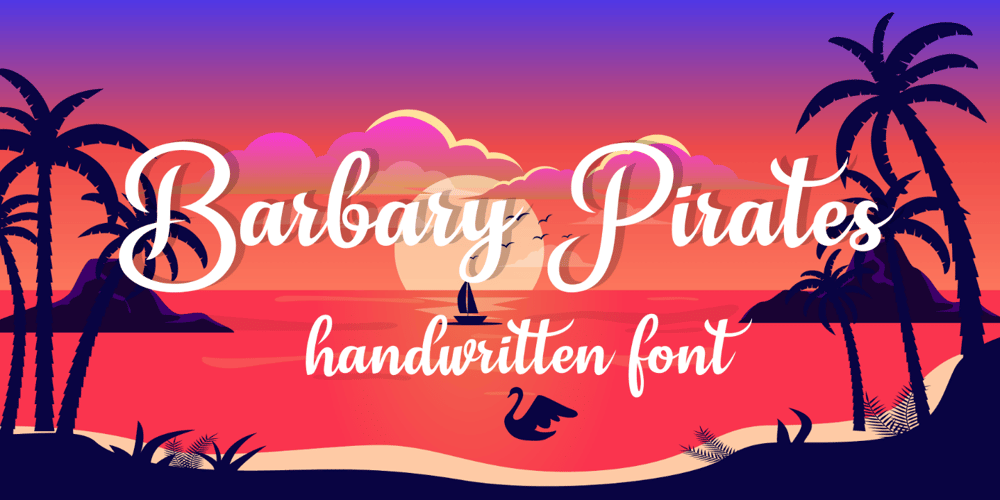
Barbary Pirates Font Family was designed by Oussama Horchani and published by OzType.. Barbary Pirates contains 1 styles and family package options. Imagine a hot summer day with a cool breeze, watching the sun set over the beach, ice cold lemonade in your hand and some of your favorite music playing in the background. A perfect postcard moment!Use Barbary Pirates to make awesome type designs for logos, posters, album covers, packaging, Instagram posts…